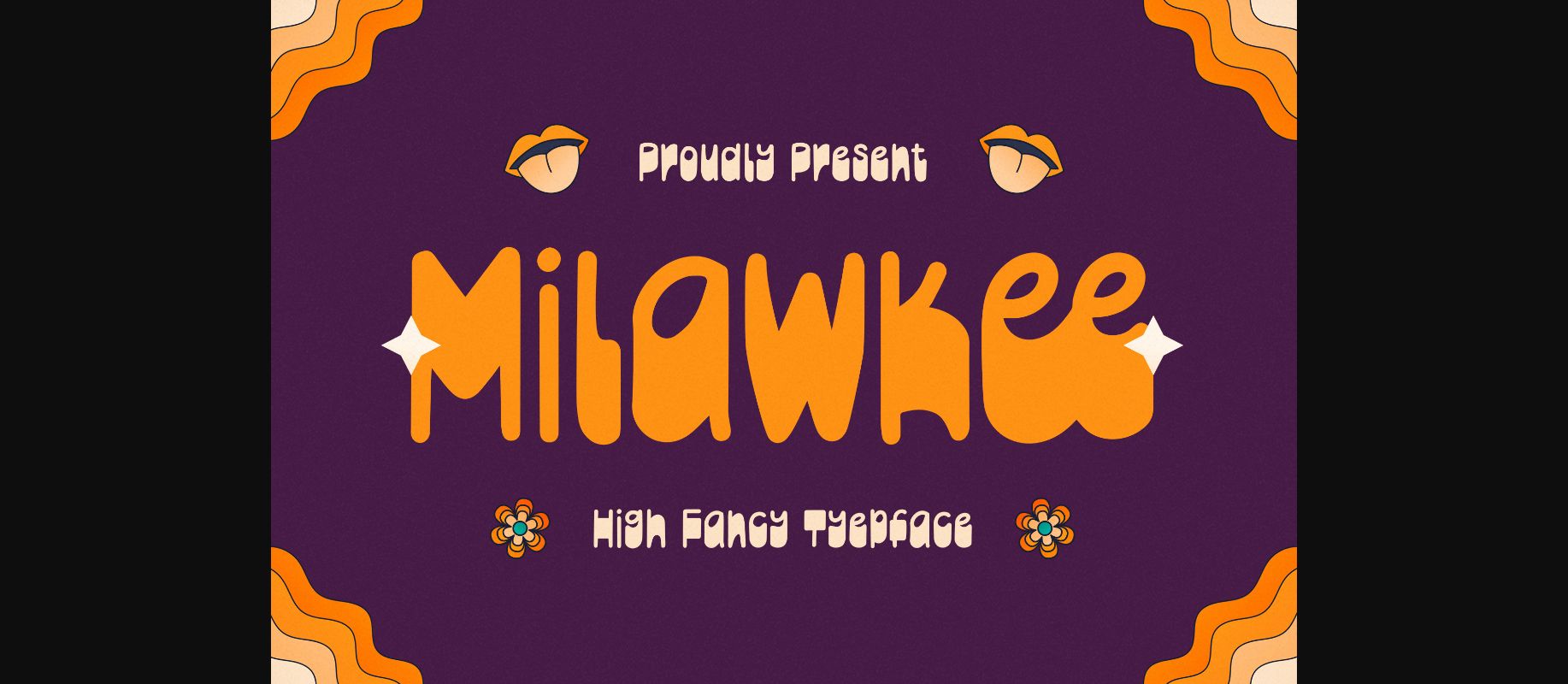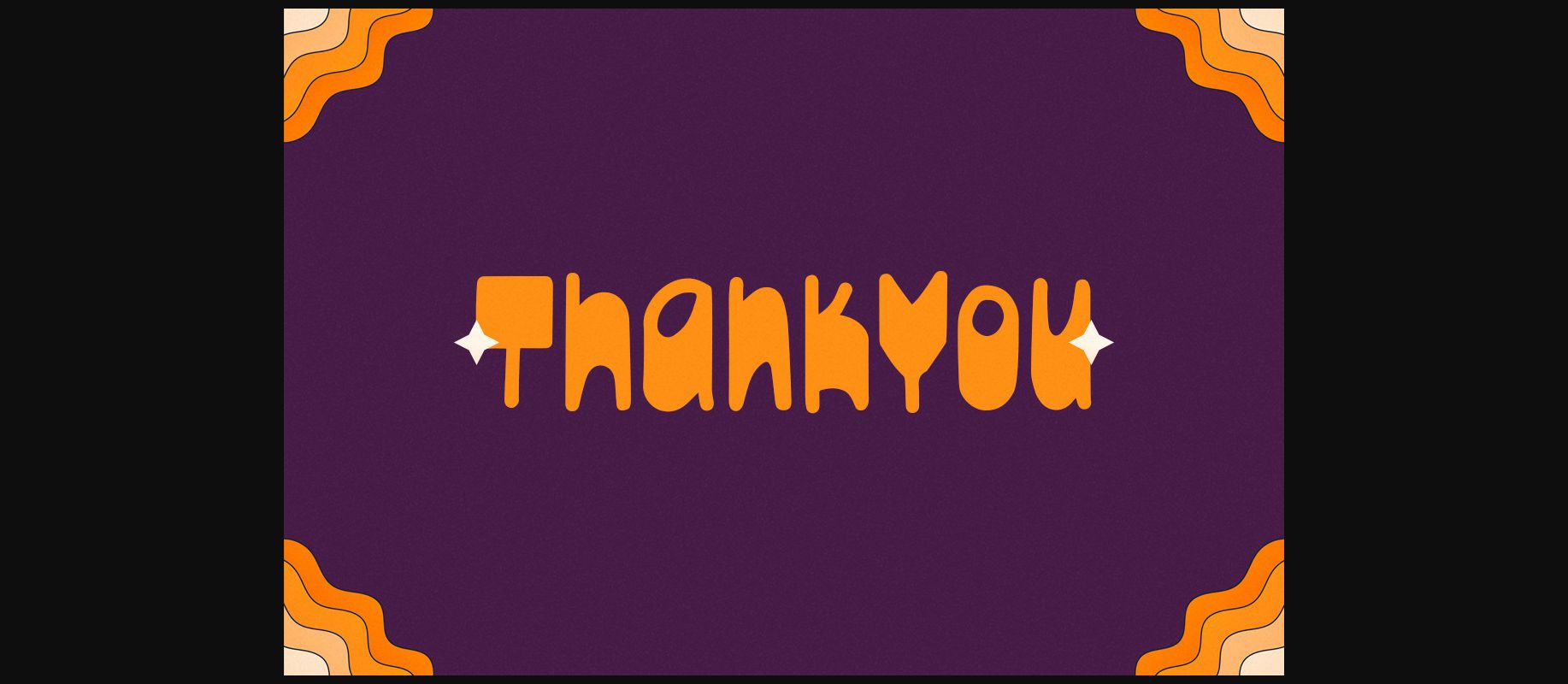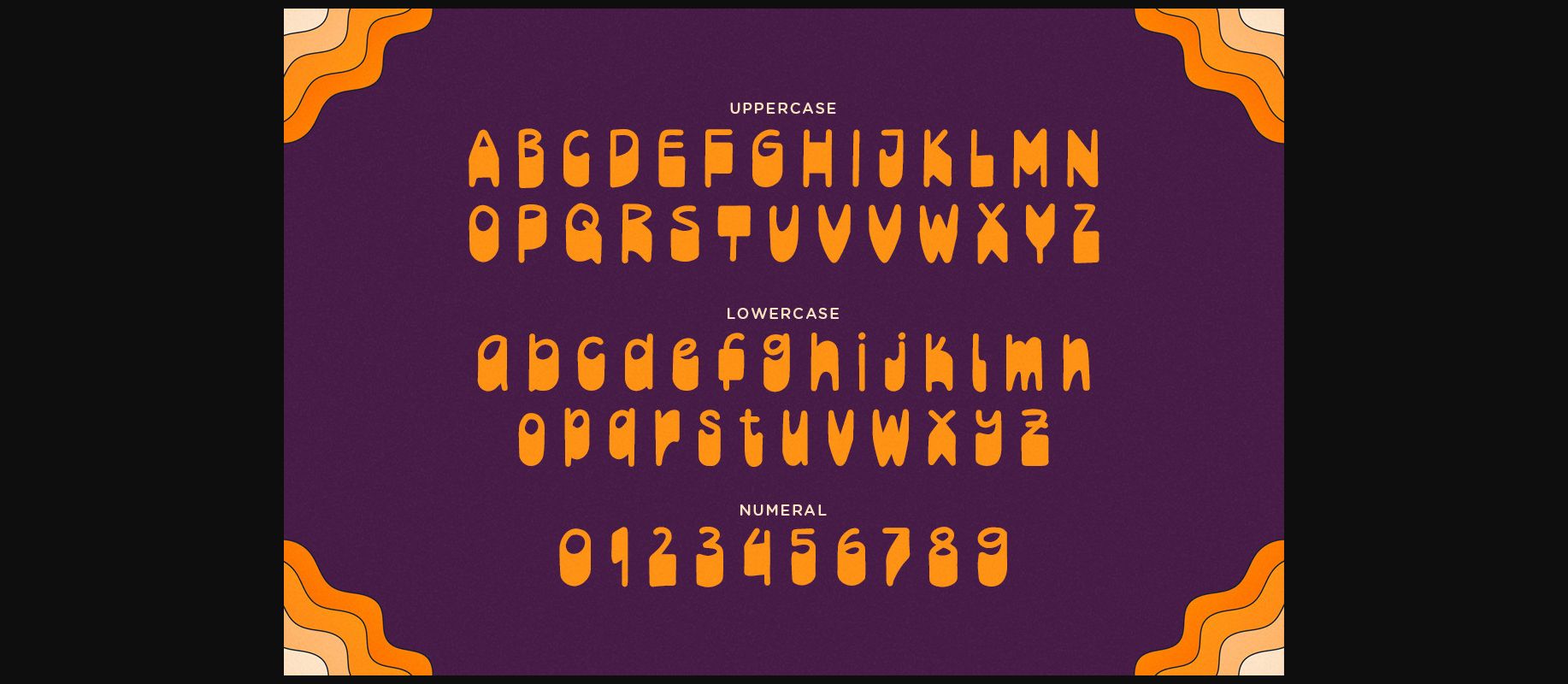
About Milawkee Font
Indulge in opulence with “Milawkee” – a high fancy typeface that exudes luxury and sophistication.
With its intricate and ornate letterforms, “Milawkee” transports you to a world of elegance and grandeur. Each character is meticulously crafted with delicate details, making it perfect for high-end branding, invitations, certificates, and more.
Embrace the lavishness of “Milawkee” as it adds a touch of refinement to your projects. Whether you’re designing for luxury events, upscale packaging, or classy logos, this typeface will make a lasting impression with its sophisticated aesthetics.
Elevate your designs with the regal charm of “Milawkee” today!
With its intricate and ornate letterforms, “Milawkee” transports you to a world of elegance and grandeur. Each character is meticulously crafted with delicate details, making it perfect for high-end branding, invitations, certificates, and more.
Embrace the lavishness of “Milawkee” as it adds a touch of refinement to your projects. Whether you’re designing for luxury events, upscale packaging, or classy logos, this typeface will make a lasting impression with its sophisticated aesthetics.
Elevate your designs with the regal charm of “Milawkee” today!